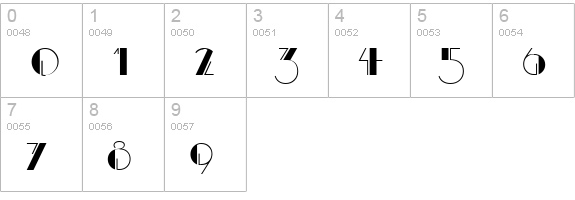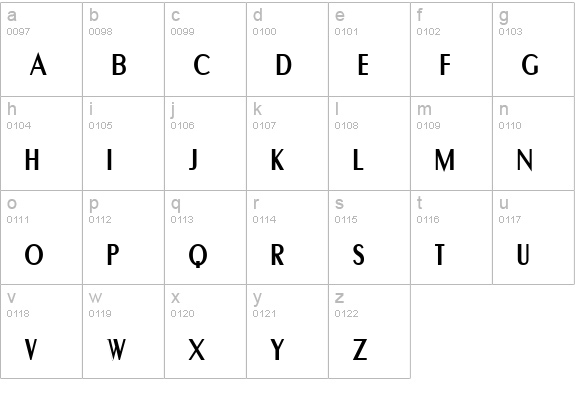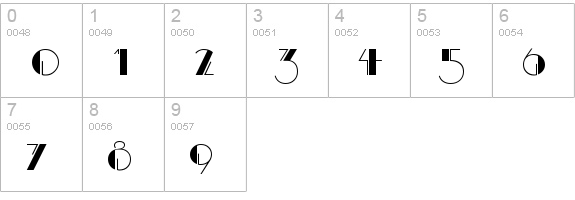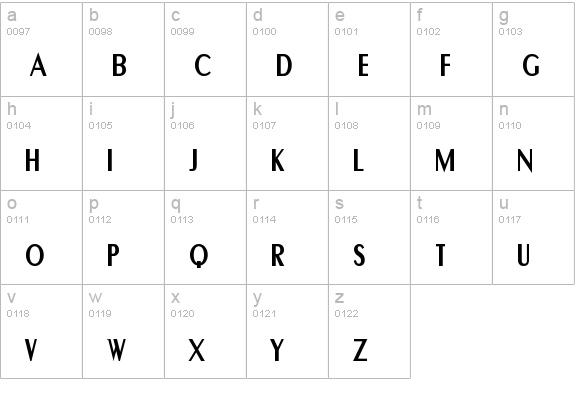
Banco Normal is the standard, neutral variant in the Banco typeface family \xE2\x80\x94 well suited to general body text, paragraphs, and standard typographic work.
Banco Normal font is a sleek and modern typeface that exudes sophistication and elegance. With its clean lines and sharp edges, this font is perfect for adding a touch of class to any design project. The versatility of Banco Normal makes it suitable for a wide range of applications, from branding and advertising to editorial and web design. What sets Banco Normal apart is not only its timeless design but also the fact that it is available for free download at FontsMarket.com. This means that you can access this premium font without any cost, making it a valuable resource for designers and creatives looking to elevate their work without breaking the bank. Whether you're looking to create eye-catching headlines, stylish logos, or elegant typography layouts, Banco Normal font has got you covered. Download it today and start adding a touch of sophistication to your projects.